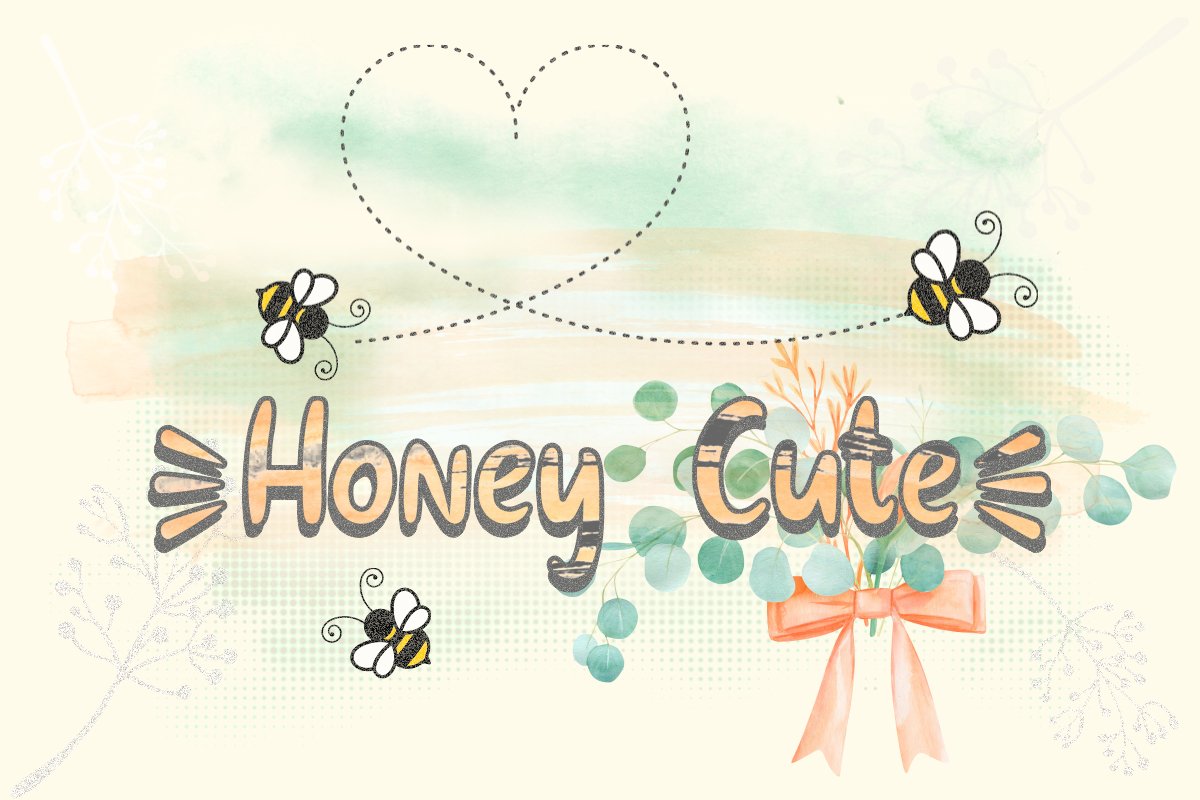
Honey Cute
HoneyCute
Honey Cute is a cute, very sweet, and friendly handwritten font. Its unique style will make it incredibly versatile and fitting to a large pool of designs. Get inspired by its authentic feel and use it to create gorgeous work, beautiful stationary art, eye-catching social media posts, and cute greeting cards. This font is PUA encoded which means you can access all of the cute glyphs with easy! The only limit is your imagination!.